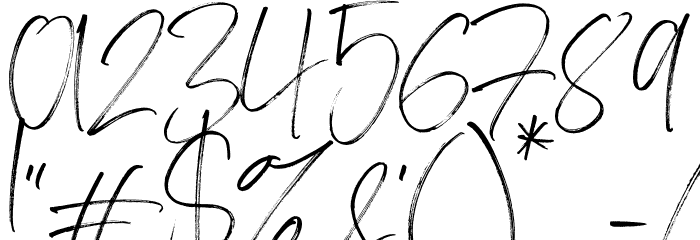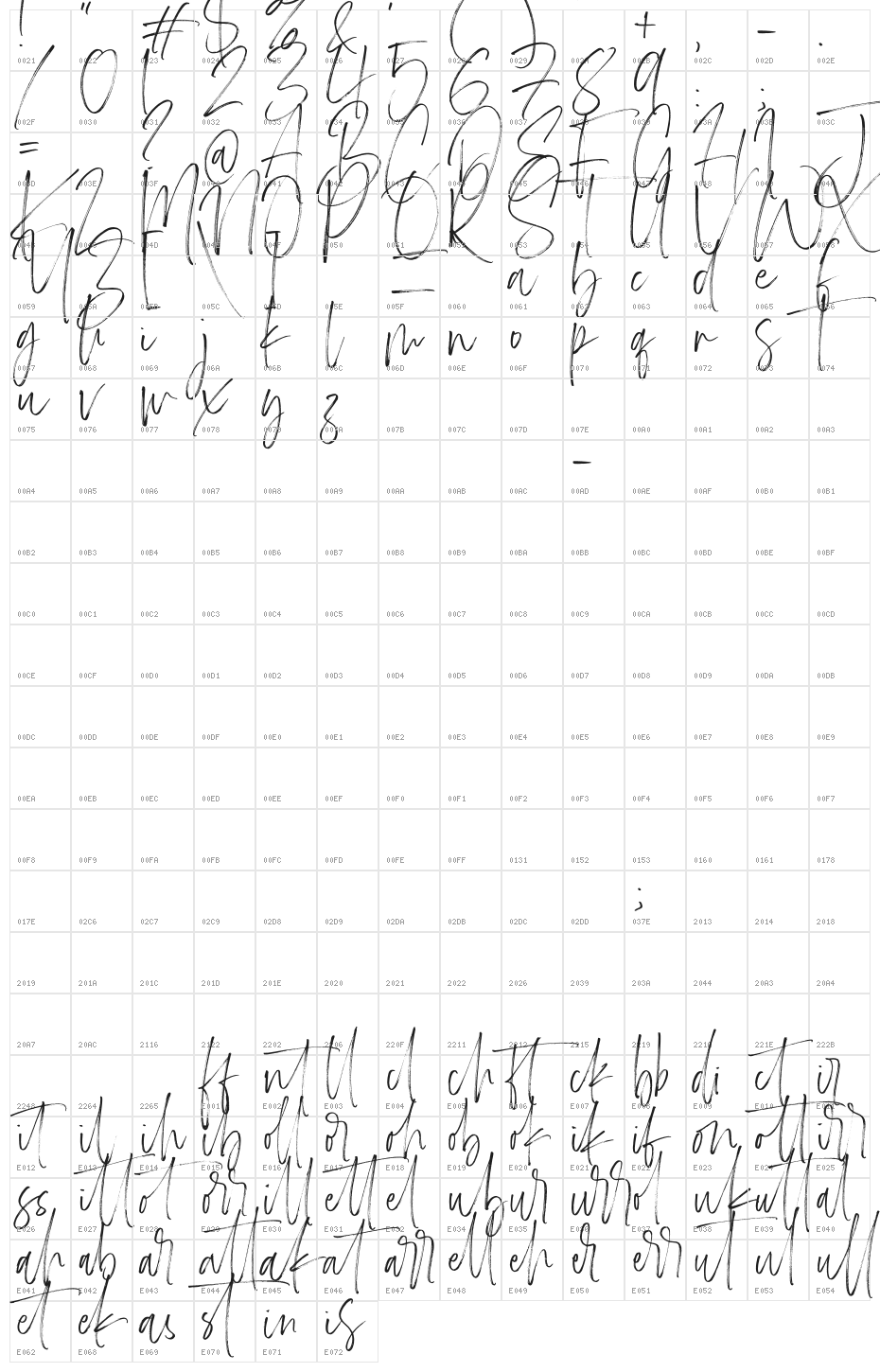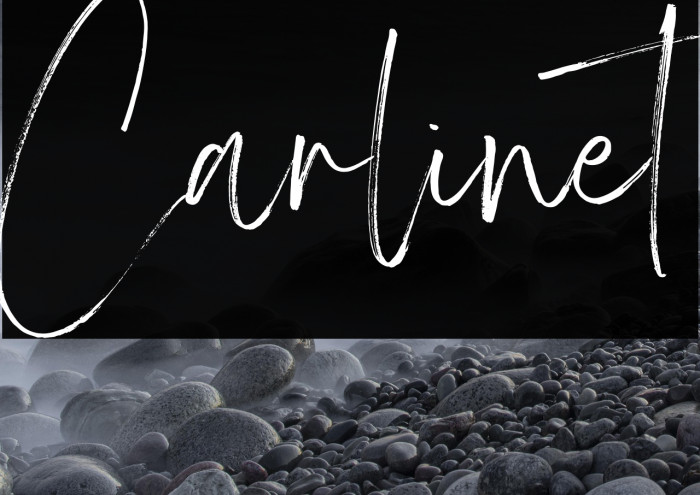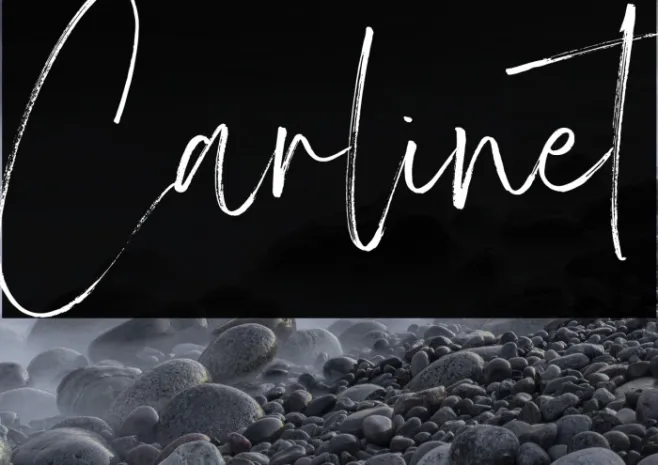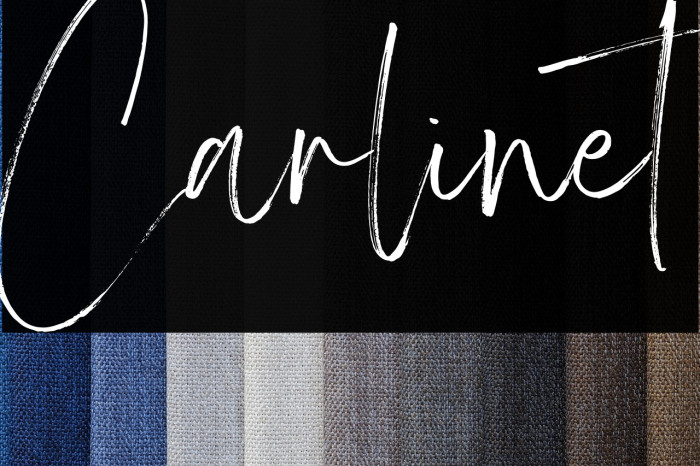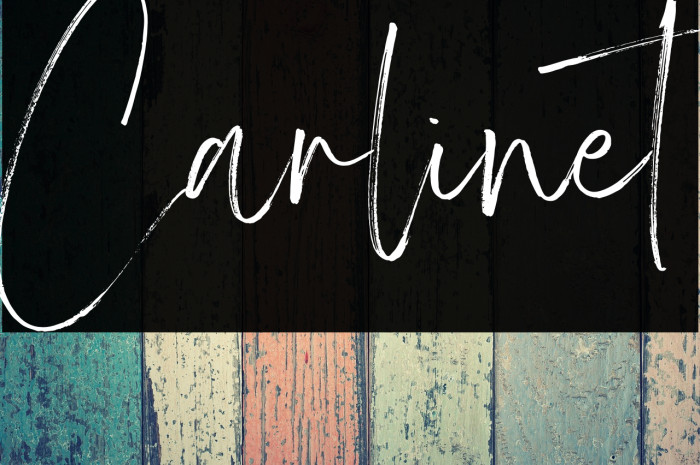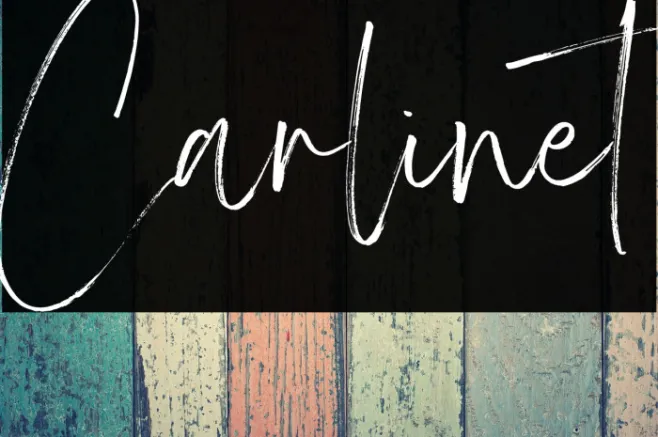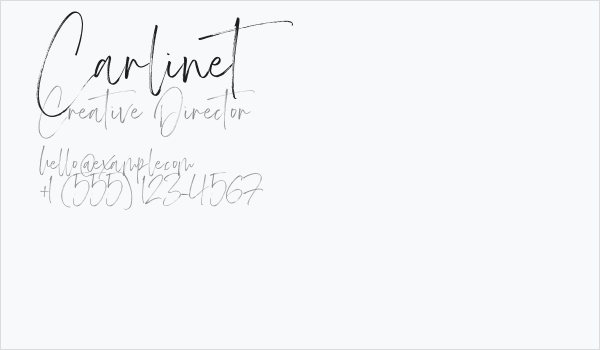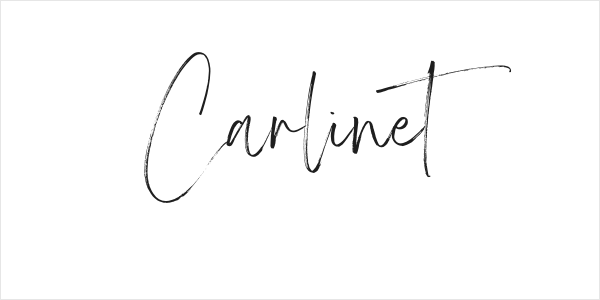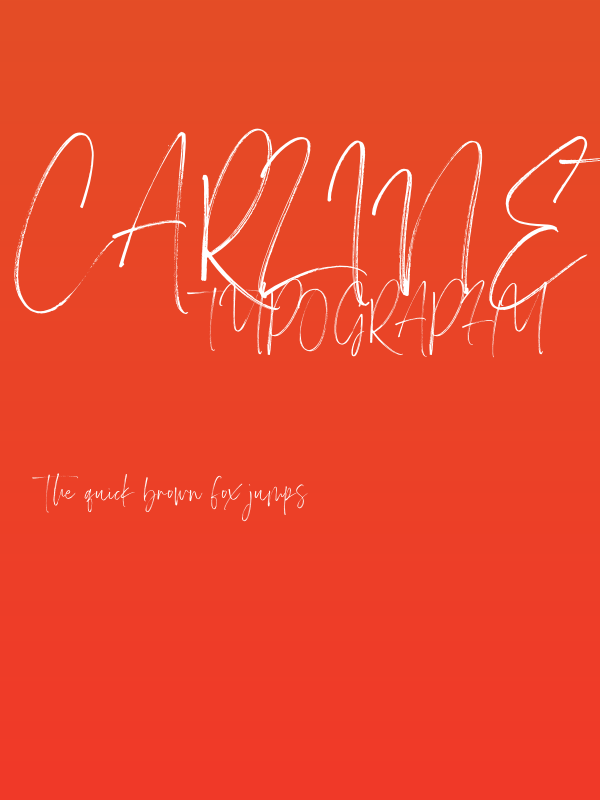
Carlinet Font
Carlinet Description
This font features a dynamic and expressive handwritten style, characterized by its fluid and organic strokes. The letters are slightly slanted, giving a sense of movement and energy. The uppercase and lowercase letters maintain a consistent style, with some variation in stroke thickness, adding a touch of elegance and spontaneity. The numbers and special characters are crafted with the same lively flair, making the font versatile for various creative applications. Its overall appearance is both artistic and approachable, suitable for projects that require a personal and informal touch.
| Proposed Projects | Ideal for greeting cards, invitations, personal branding, and artistic projects. |